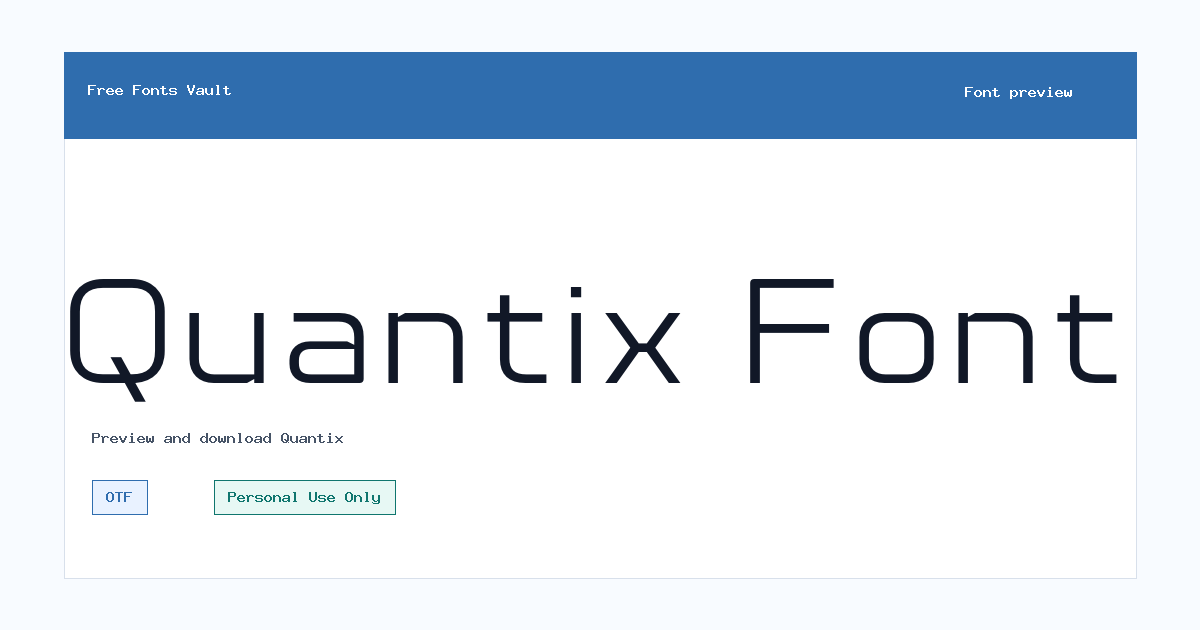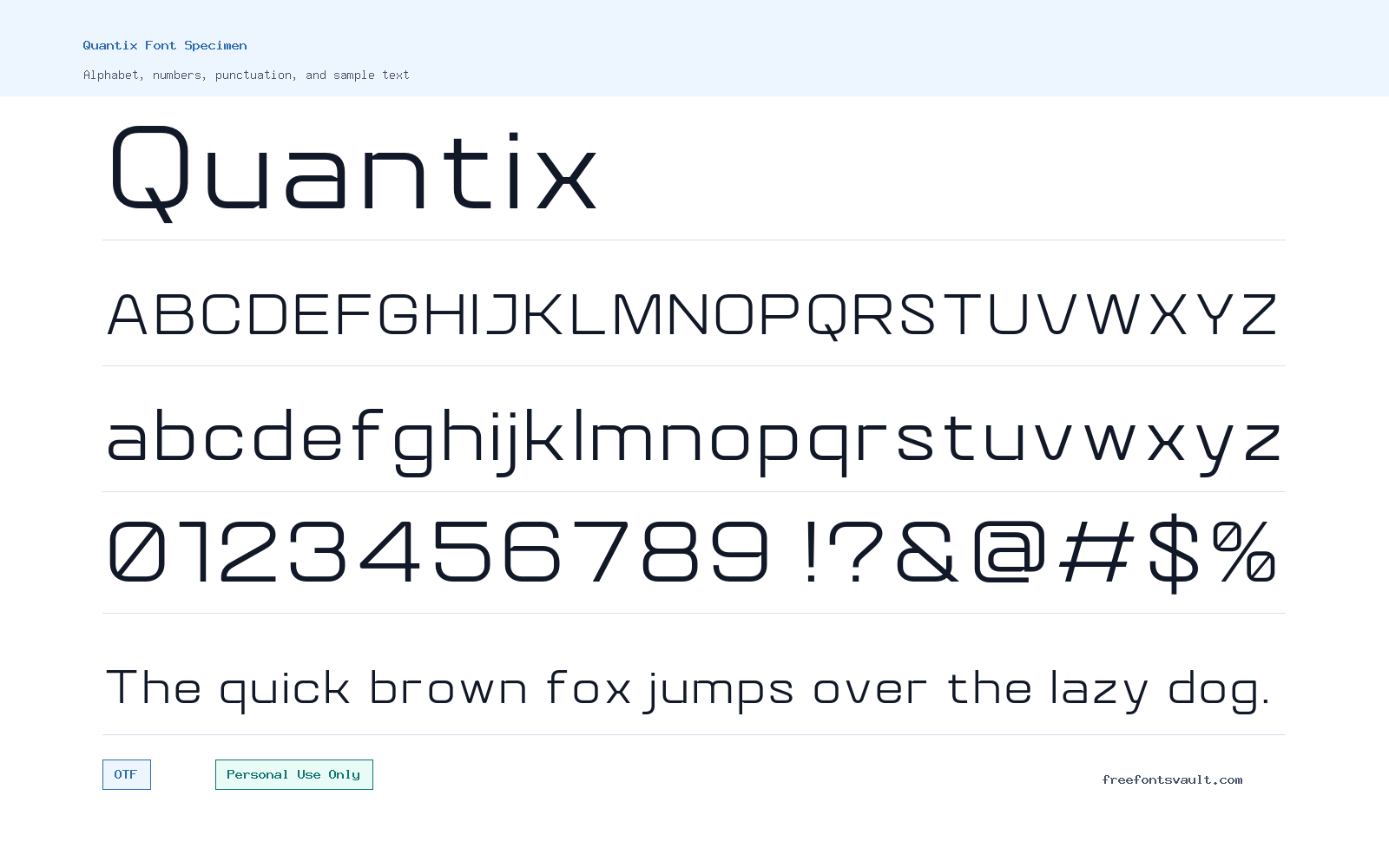
Quantix
- Designer Habib Alfatul Akbar
- Foundry Arterfak Project
Quantix font.
Quantix is a sans serif font for personal projects, made for users who want a clean but assertive type style for short visual text. It is a good font to test in headings, poster drafts, logo concepts, social graphics, and web mockups where the words need to feel direct and modern.
About Quantix Font
Quantix keeps the focus on clear letter shapes rather than decorative detail. Because the downloadable style is a regular OTF font, it is easy to try in common design apps for titles, nameplates, labels, and presentation mockups. The best way to judge it is through real words: type your brand name, a headline, a short quote, or a button label in the preview box and check how the spacing feels at both large and medium sizes.
This font is most useful when the design needs a straightforward sans serif voice with enough presence for display work. Try it in logo sketches, poster headlines, YouTube thumbnail text, packaging concepts, portfolio covers, landing page hero sections, and simple promotional layouts. Keep the copy short at first. A font like this can look stronger when it has space around it, so avoid crowding it with too many competing typefaces, effects, or dense paragraphs.
For posters and social visuals, Quantix works best in short lines where the shape of each word can be seen clearly. Try it with strong alignment, generous margins, and a simple color palette. If you use it over a photo, add enough contrast so the letters do not disappear into the background. For web mockups, use it in hero headlines, section titles, navigation concepts, or CTA tests, but check rendering in the browser before using it in a live project.
Font pairing should stay simple. Pair Quantix with a neutral text face for body copy, especially if your layout has descriptions, blog text, pricing details, or longer instructions. A quiet serif can add contrast in editorial layouts, while a plain sans serif can keep a digital interface feeling clean. Avoid pairing it with another loud display font unless the design intentionally needs a bold typographic mix.
- Regular-weight sans serif style for clean headline and display testing
- Works well for short text such as titles, names, labels, and visual mockups
- Simple structure that can pair with neutral body fonts
- Logo concepts and wordmark sketches for personal exploration
- Poster headlines, event graphics, and short promotional layouts
- Web mockups, landing page hero text, and interface title testing
- Social media graphics, thumbnails, and portfolio cover designs
- Packaging concepts, labels, and presentation title slides
Quantix is credited to Habib Alfatul Akbar and the foundry is listed as Arterfak Project.
What kind of font is Quantix?
Quantix is a sans serif font. The available style is a regular-weight OTF file.
Who designed Quantix?
Quantix is credited to Habib Alfatul Akbar, with Arterfak Project listed as the foundry.
Is Quantix good for body text?
It is better to test it as a display font first. For long paragraphs, pair it with a neutral, readable body font.